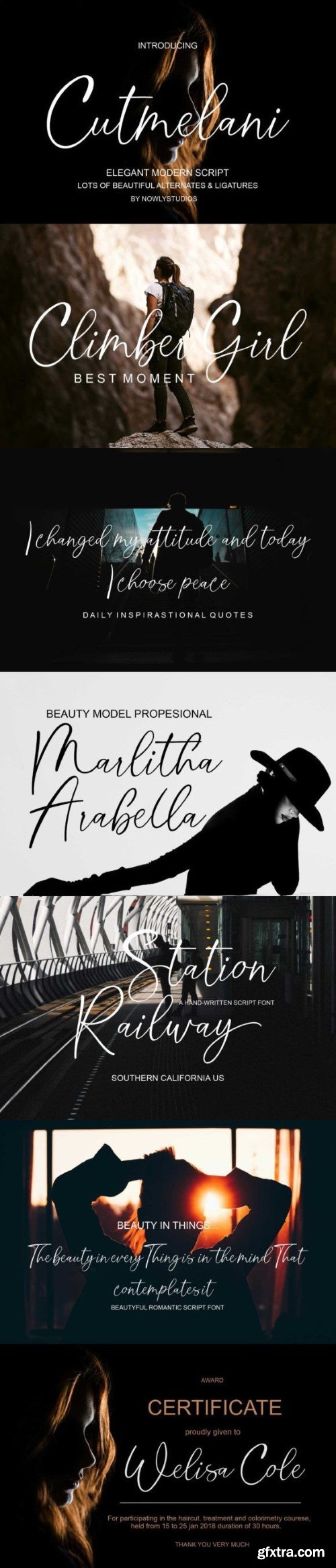
.cutamelani Font
Cutmelani is a stylish modern script font. It’s elegant and easy on the eyes, perfect for adding a touch of sophistication to your designs. Whether you’re creating invitations, logos, or anything else, Cutmelani adds a classy flair that stands out beautifully.